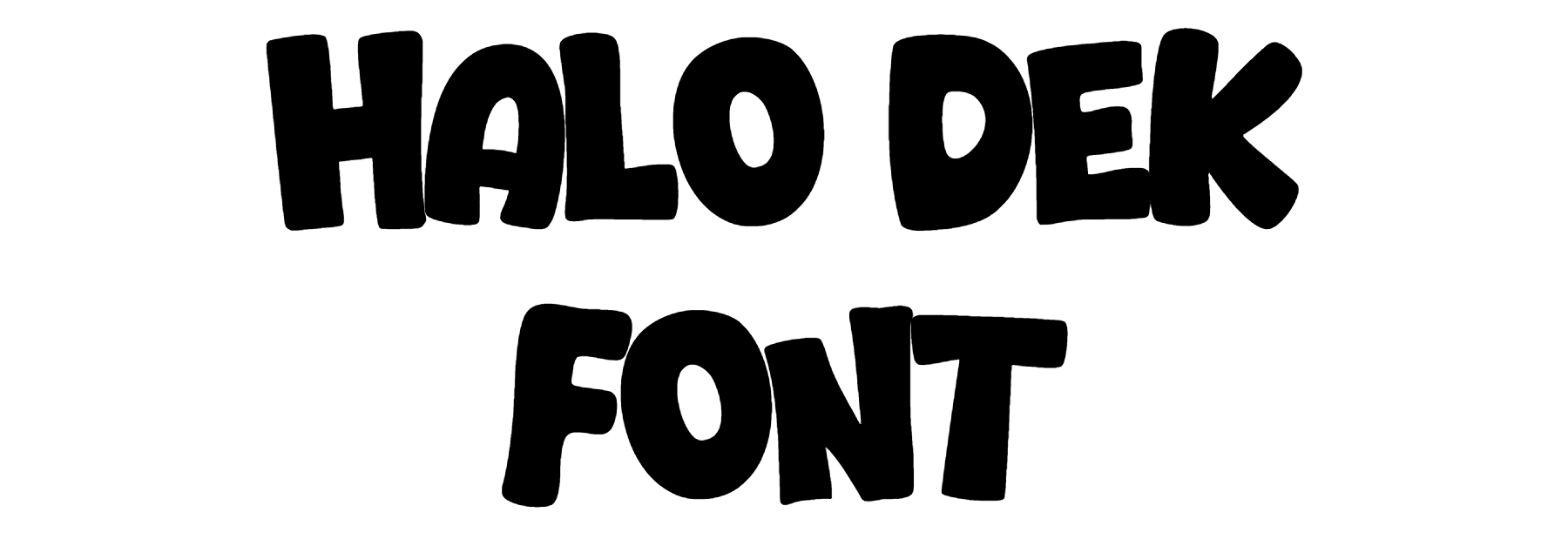
Halo Dek
Halo Dek is a cartoon font designed by Khurasan (2024). It has a cheerful, hand-drawn look that makes people smile before they even read the words. You can download it for free and test it with your own words in the preview above.
What You Can Type With Halo Dek
Halo Dek covers the full alphabet in upper and lowercase, plus all ten numbers, so you can set names, dates and prices without switching fonts. Everyday marks like &, !, ? and @ are there too. There are no accented letters like é or ñ, so it's best kept to English text.
Where Halo Dek Works Best
Designers usually reach for fonts like Halo Dek when they're making kids' books, birthday invites and fun YouTube thumbnails. Cartoon fonts are great for short, fun lines. If you place it over a busy photo, add a thick outline or a drop shadow so it stays readable.
Who designed Halo Dek font?
Does Halo Dek support accented letters?
No. Halo Dek has no accented letters such as é, ñ or ü, so it's best for English text.